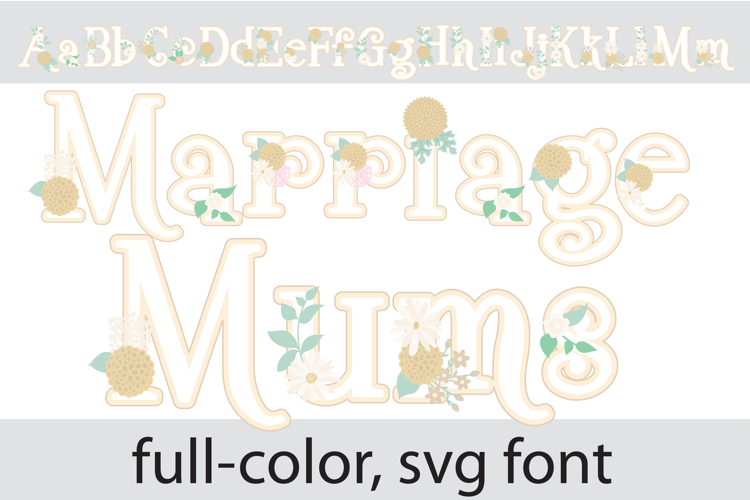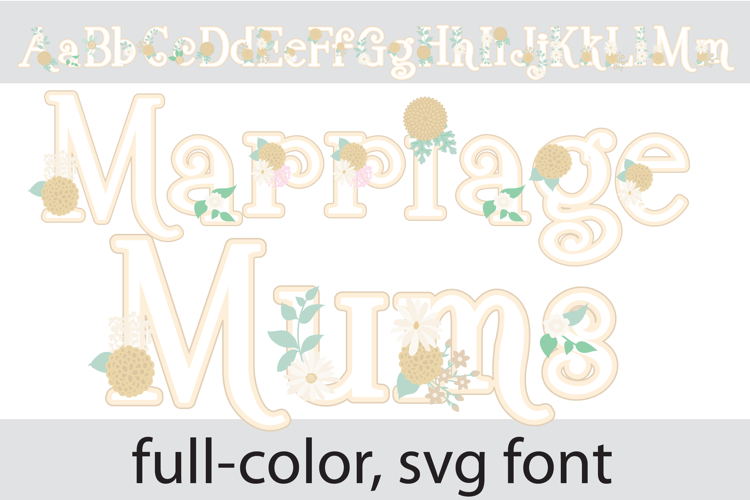
Marriage Mums Color Font
This full-color, serif font in white has pretty pastel florals throughout. There is an alt case of additional colors of each letter that you can access through your system's character map.